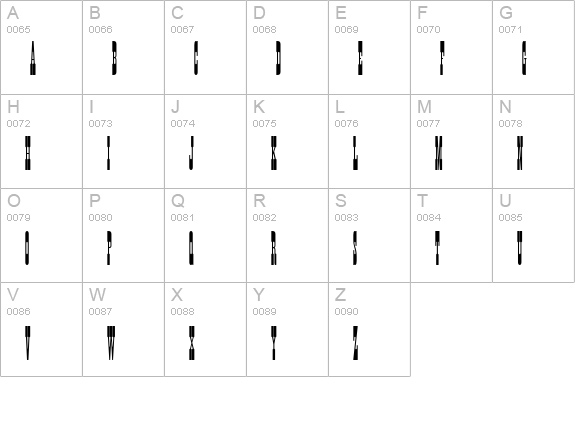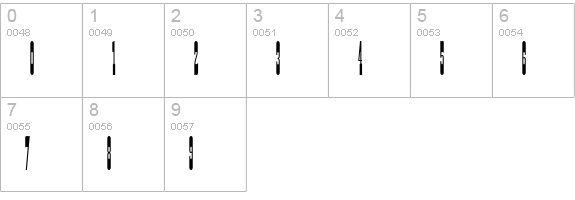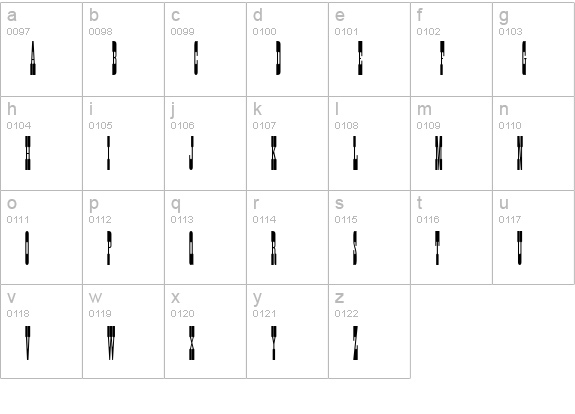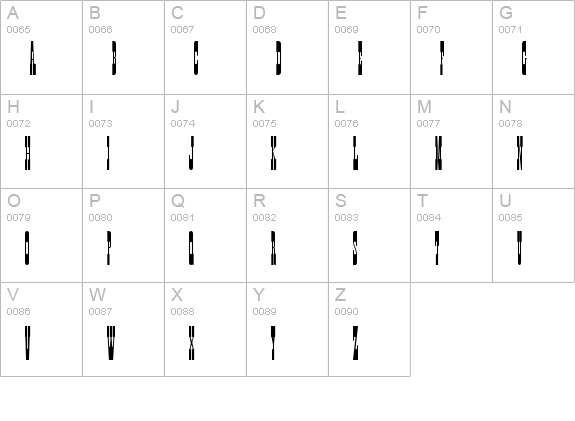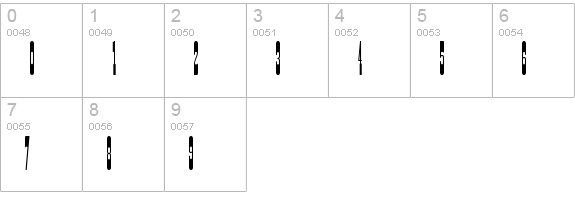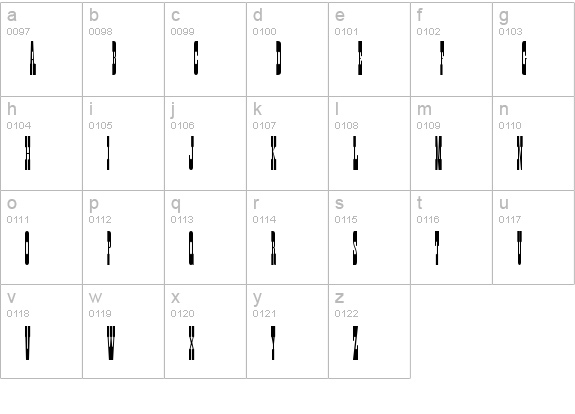
Ponderosa Std Medium Font Details
Ponderosa Std Medium is a balanced, medium-weight variant in the Ponderosa typeface family \xE2\x80\x94 well suited to sub-headlines, navigation, and balanced editorial work.
Ponderosa Std Medium is a versatile and modern font that exudes sophistication and elegance. With its balanced proportions and clean lines, this typeface is perfect for a wide range of design projects, from branding to editorial design. The medium weight of Ponderosa Std adds a touch of authority and professionalism to any text. What sets Ponderosa Std Medium apart is that it is not only stylish and functional but also free to download. You can easily access this high-quality font at FontsMarket.com, making it a valuable addition to any designer's toolkit without breaking the bank. Whether you're working on a logo, website, or print materials, Ponderosa Std Medium is sure to elevate your designs with its timeless appeal.